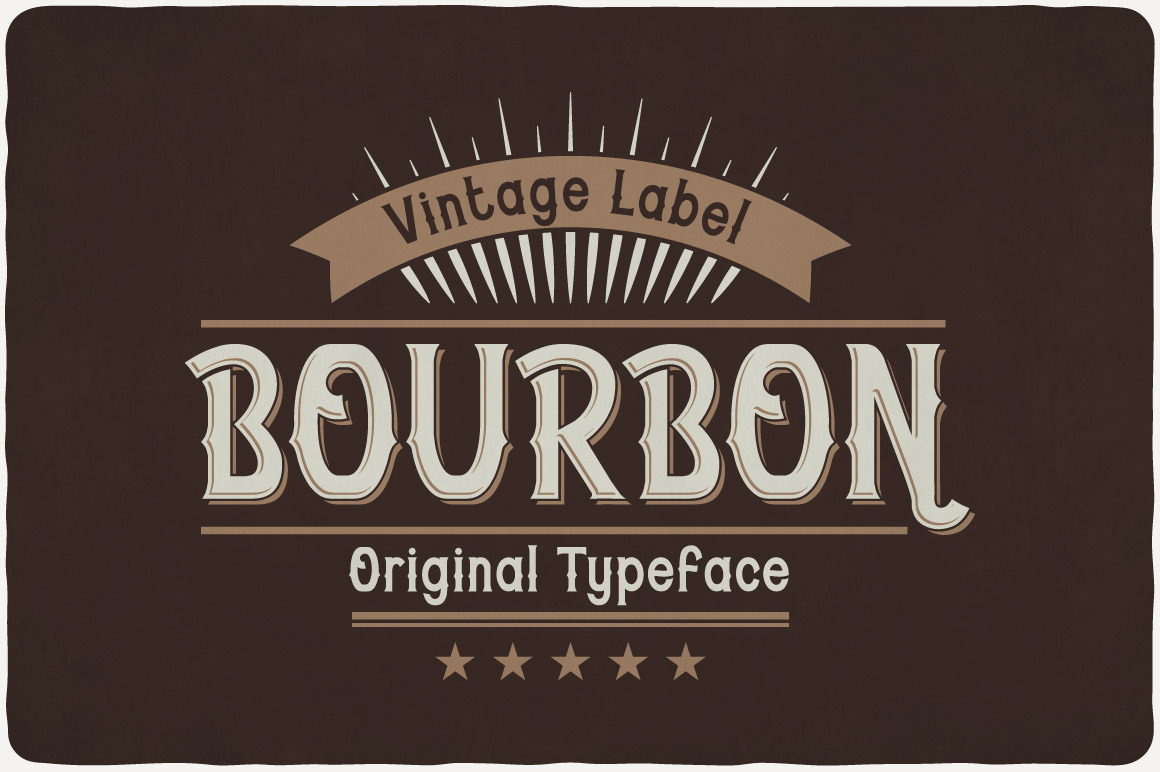
Bourbon Typeface
Introducing a vintage look label typeface named "Bourbon". It's made in old school and vintage label style. Typeface is good viewed on any yours design.